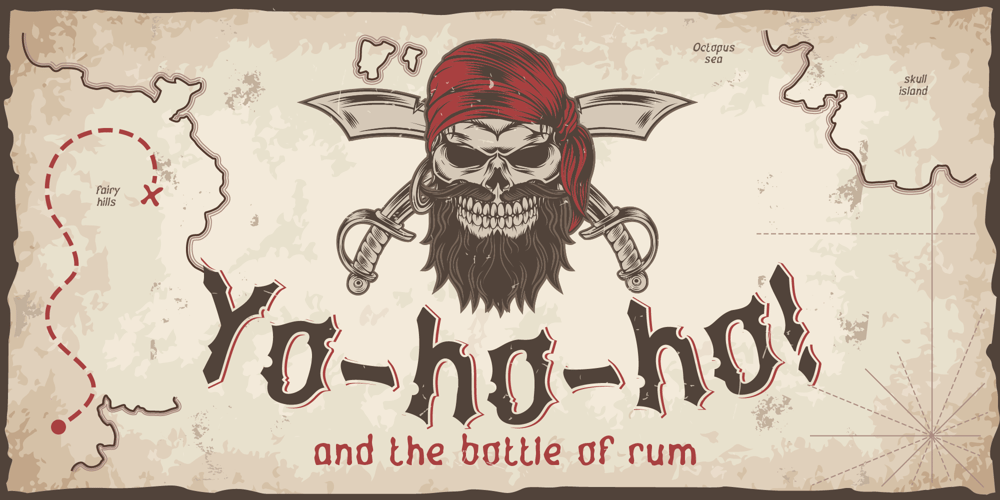
Yo ho ho Font Family was designed by Evgeny Dneprovsky and published by Fractal Font Factory. Yo ho ho contains 6 styles and family package options. Yo-ho-ho. Vintage label fontYo-ho-ho. This is a vintage pirate style layered font. Good for for illustrations for T-shirts, alcohol labels, logos and corporate identity.The font has 6 font styles, Uppercase, lowercase, numbers, punctuation and multilingual characters for each style